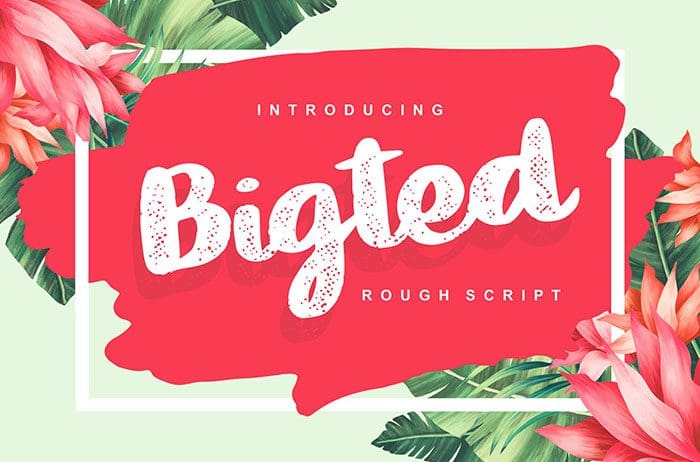
Bigted Script Font
Bigted is a fun and cheerful script font with a summery vibe. This font is perfect for stationery, poster, flyer, banner, headline, clothing, and more. Thanks to Vunira for sharing this font. This font free for personal use only, if you need commercial use and full version please download in here.